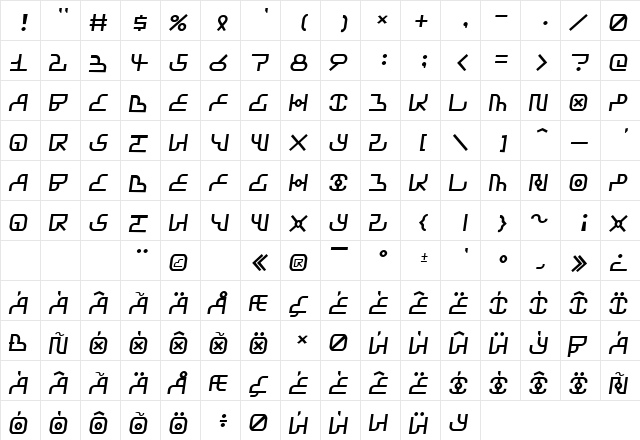
Airbag Street Regular
Design Context for Airbag Street Typeface
Airbag Street is a composed and adaptable typeface that performs quietly and consistently across a wide range of design contexts.